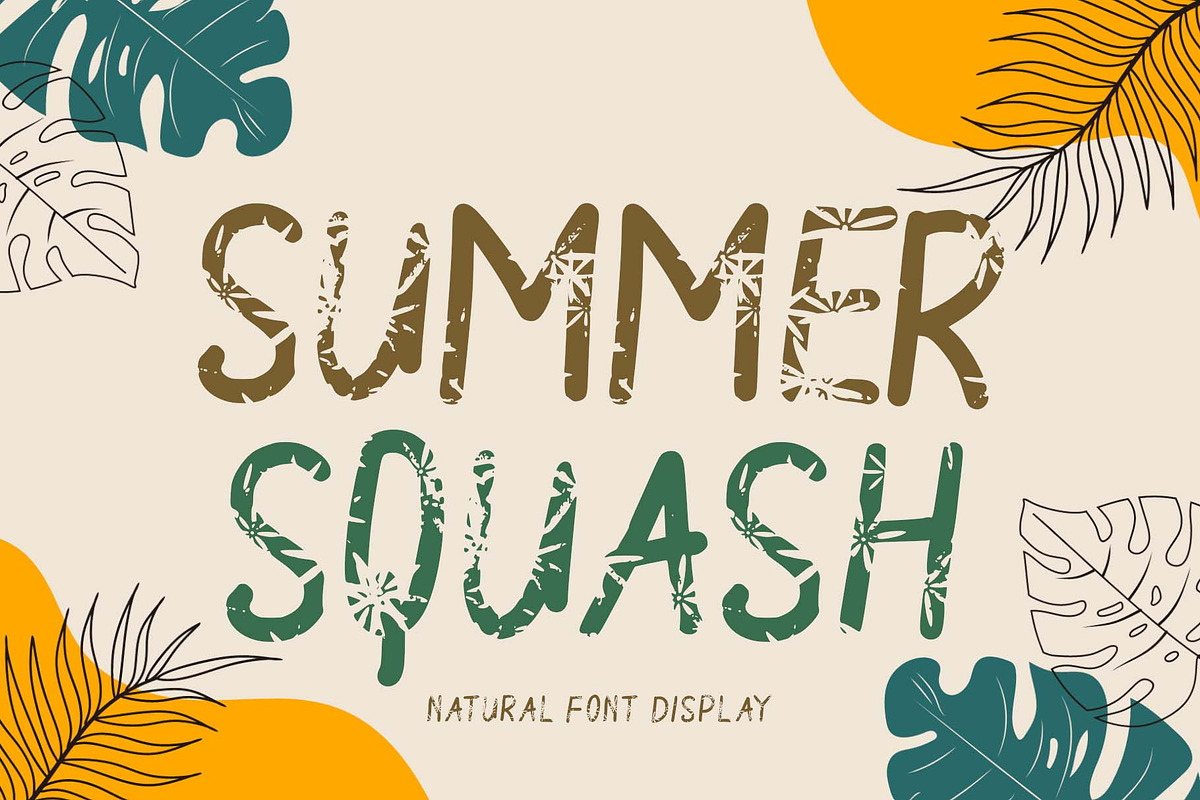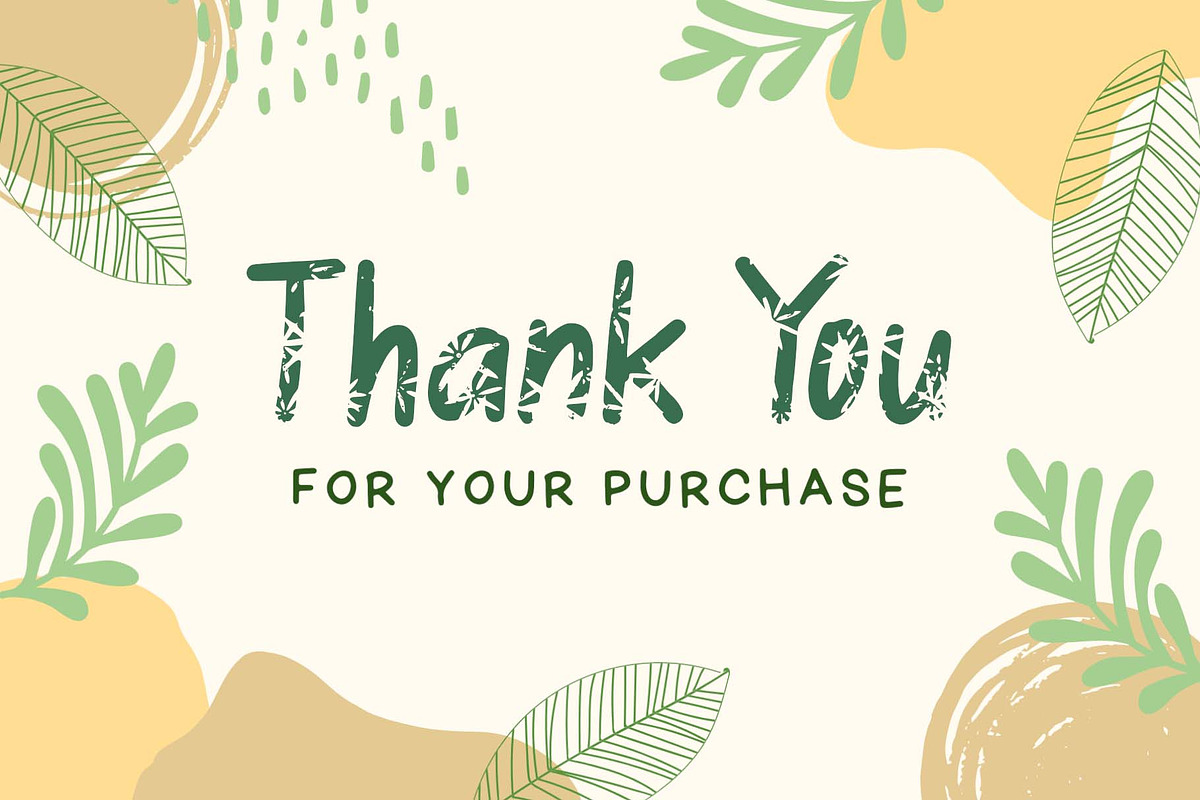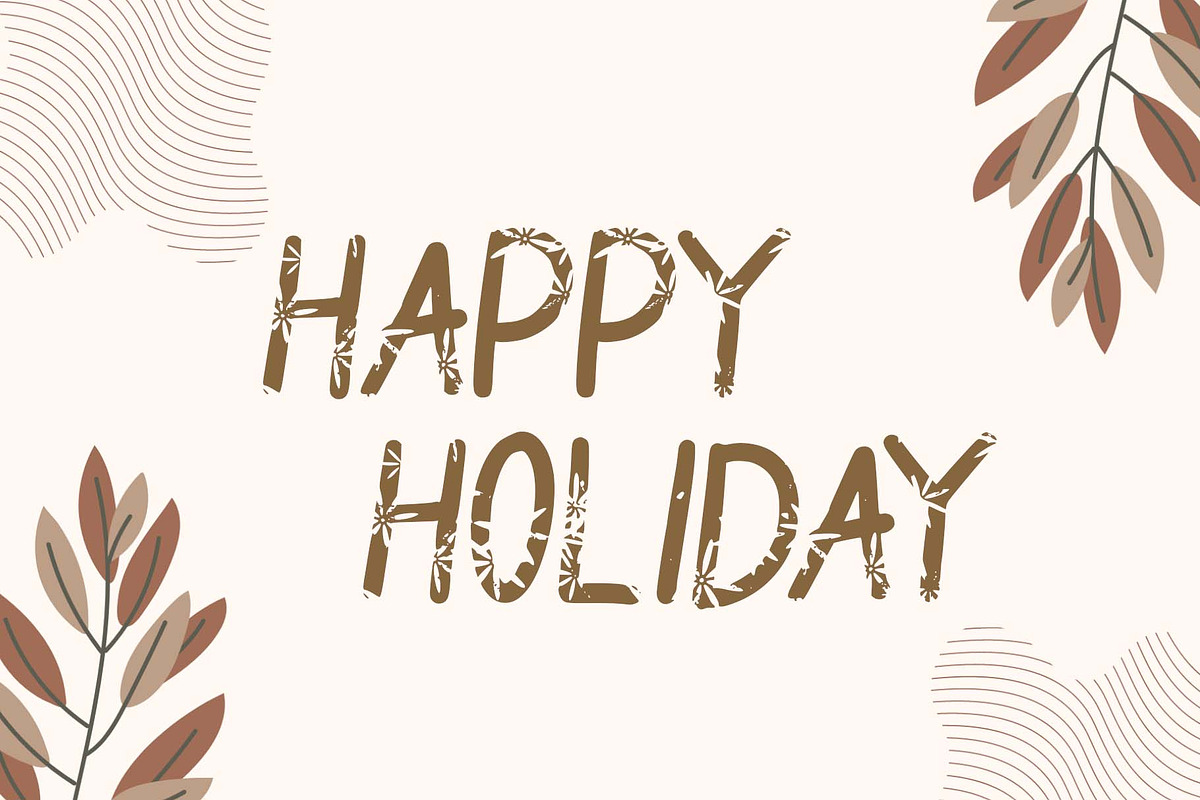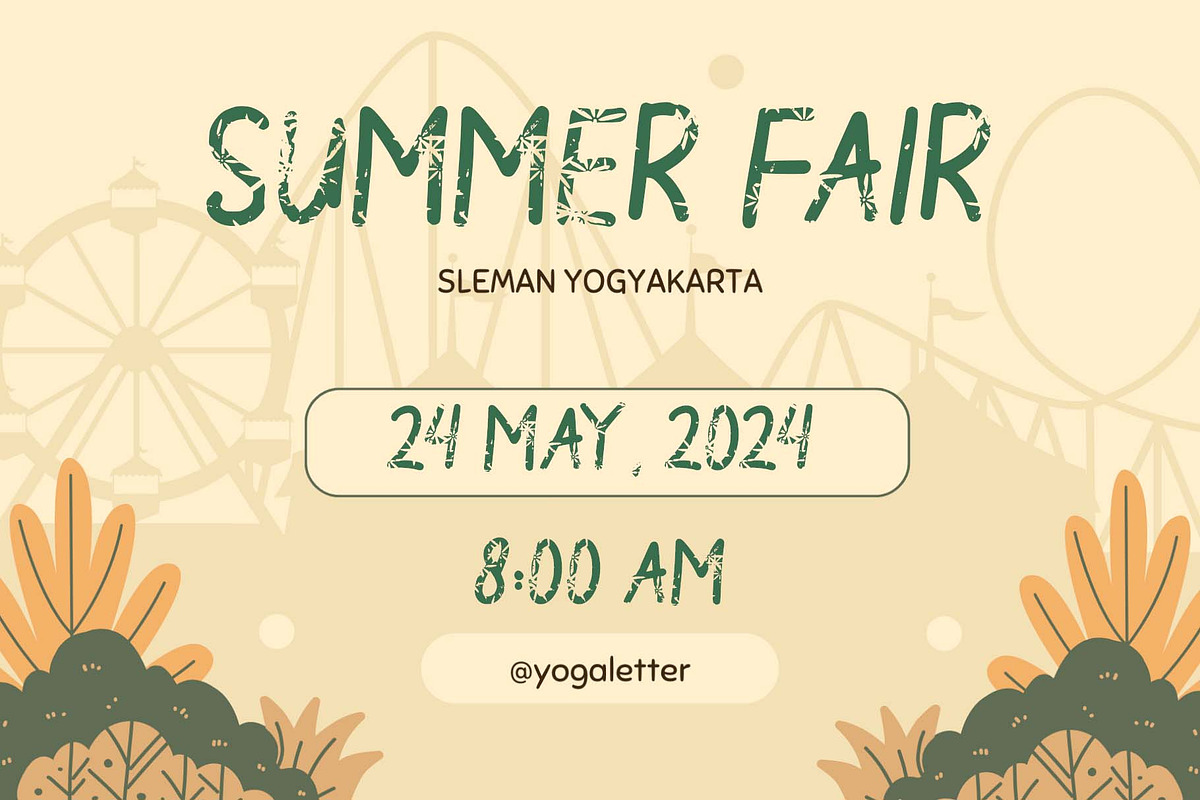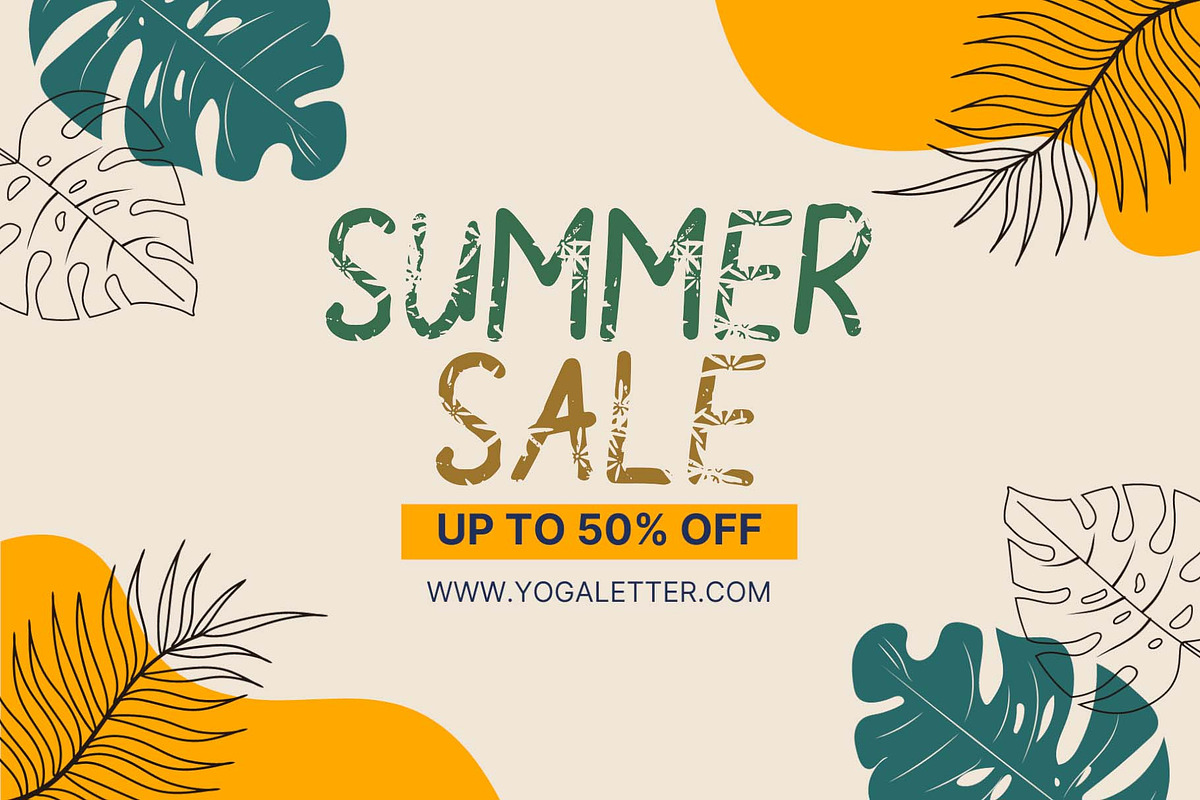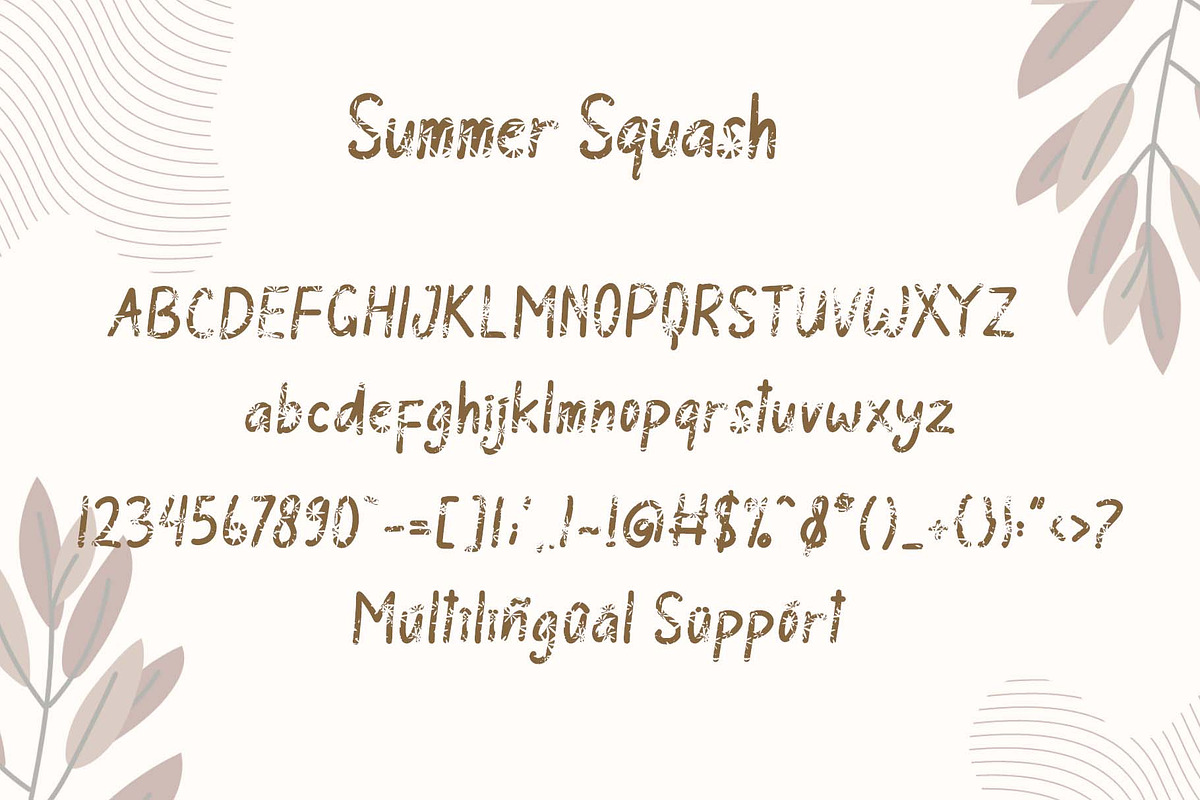
Summer Squash
"Summer Squash" is a display font with a floral pattern. This font is equipped with uppercase, lowercase, numerals, punctuation, and multilingual support. It is very suitable for summer, vacation, holidays, camping, natural moments, Father's Day, and others.